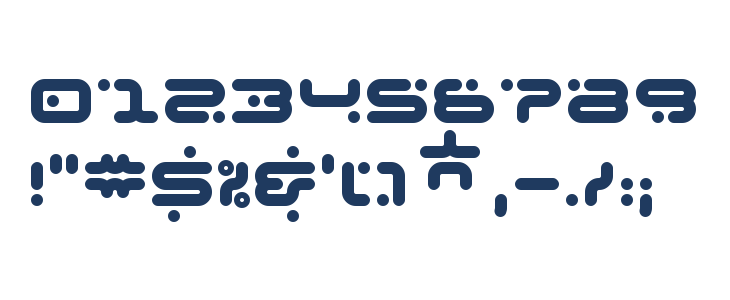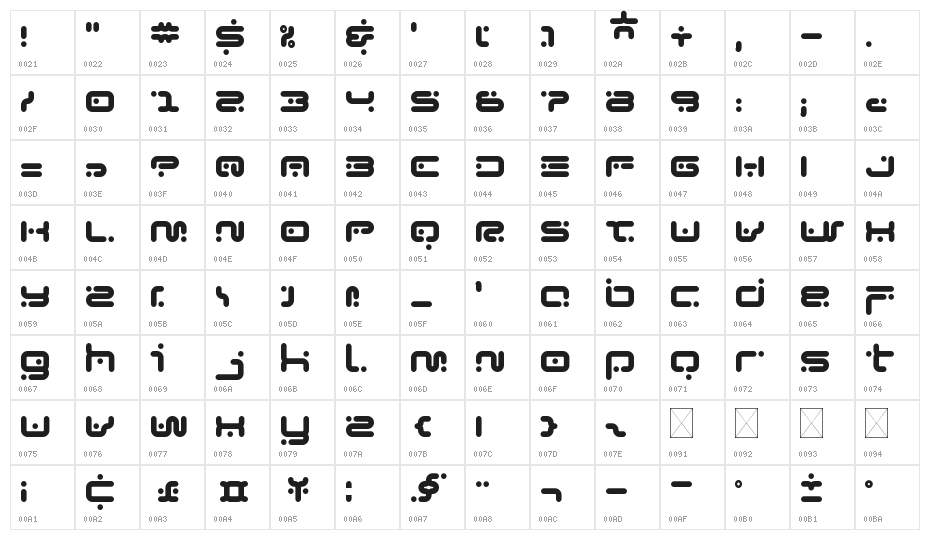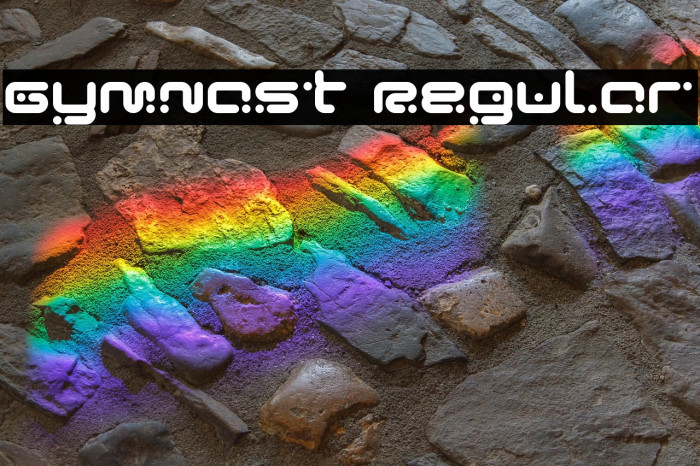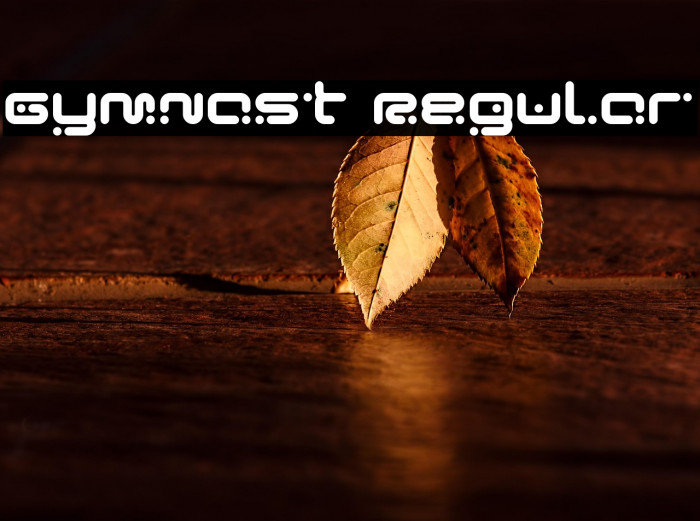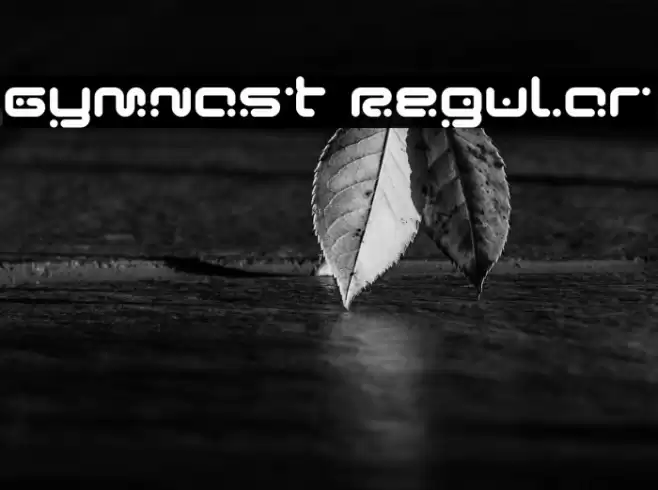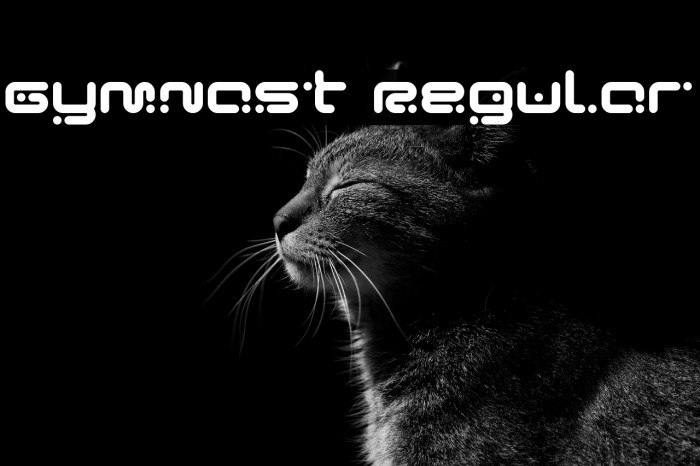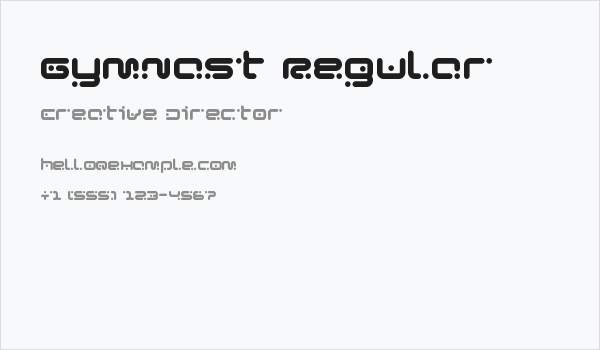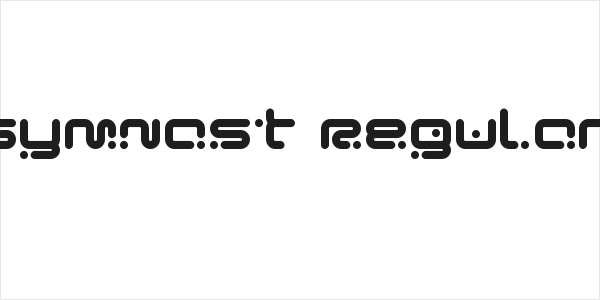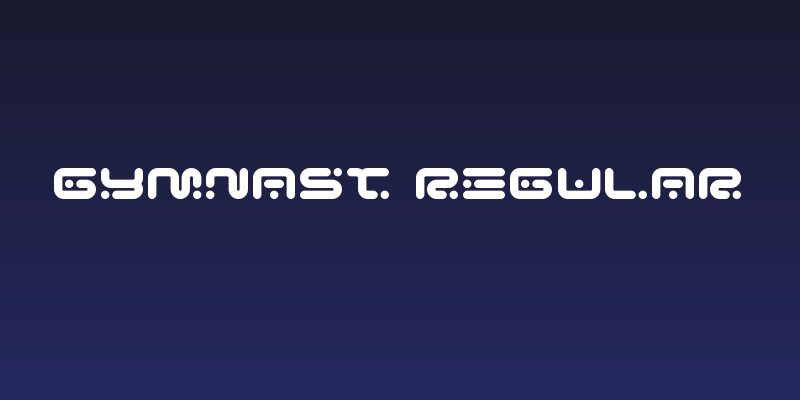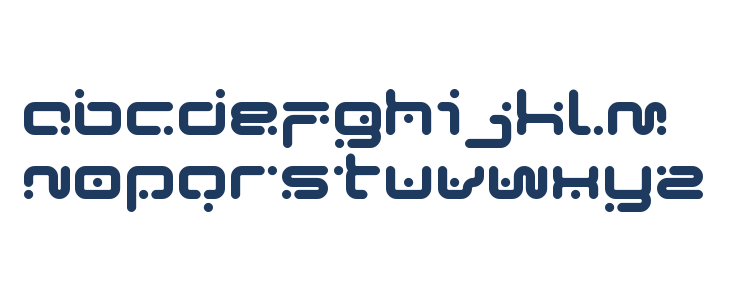
Gymnast Regular Font
Gymnast Regular Description
This font features a futuristic and geometric design, characterized by its rounded edges and distinct dot-like accents that give it a digital or tech-inspired look. The characters are uniformly structured, maintaining a consistent height and width, which contributes to its modern and sleek appearance. The use of dots within the letters adds a unique visual element, making it stand out for creative and contemporary projects. The font's boldness and uniformity make it suitable for headlines and display purposes, where a strong visual impact is desired.